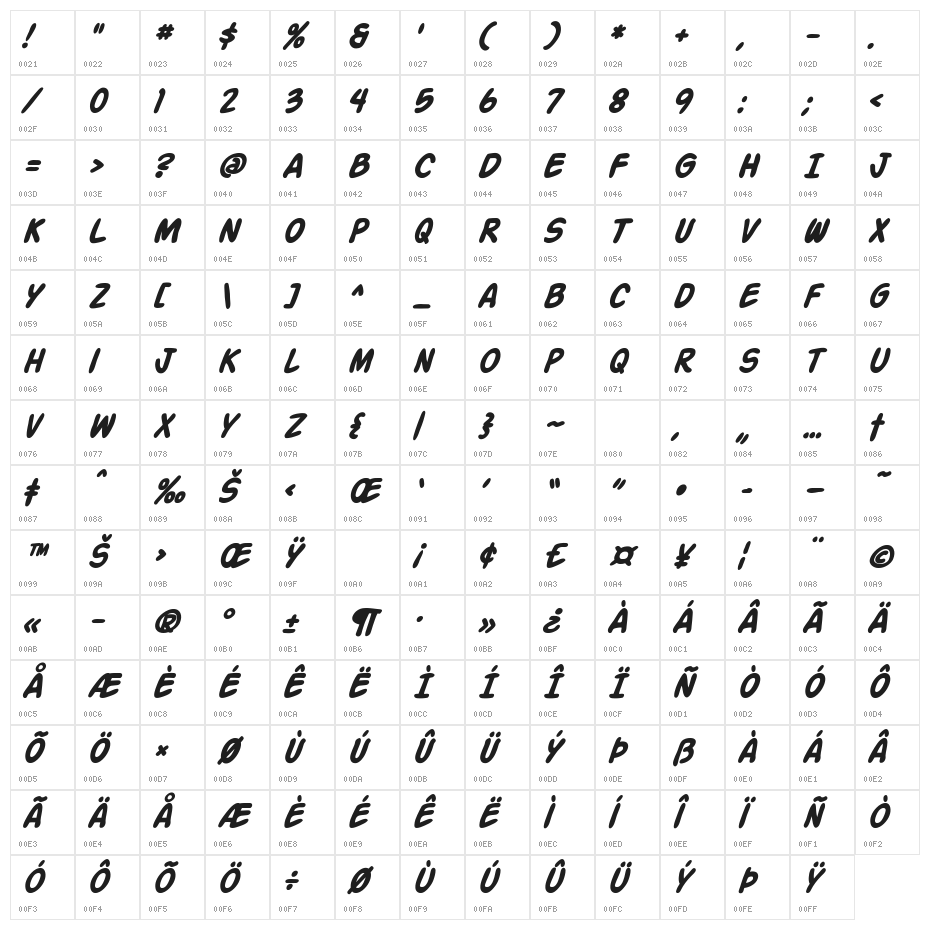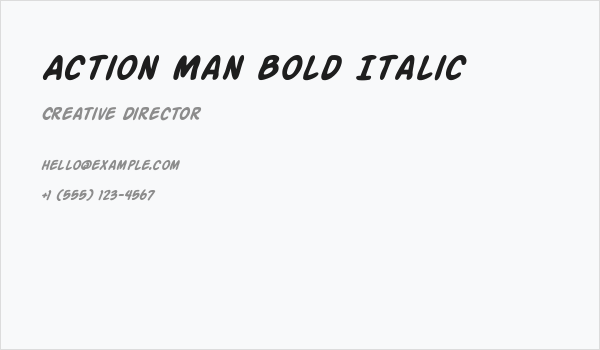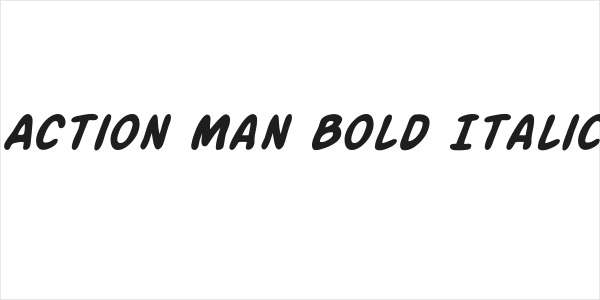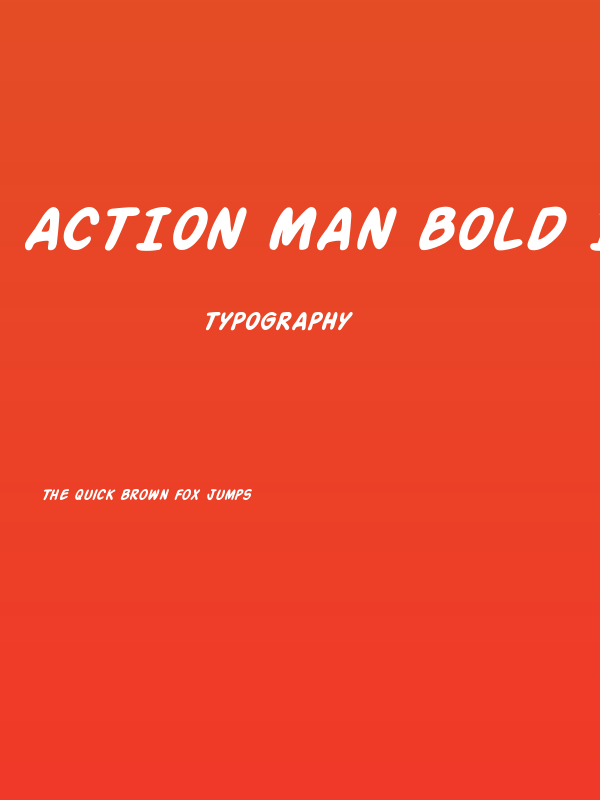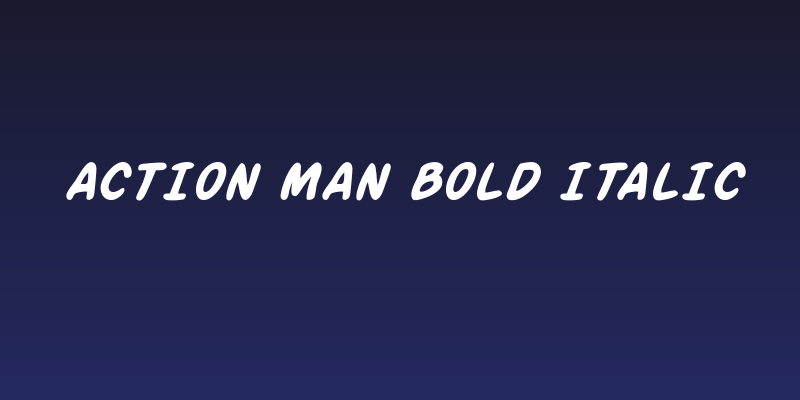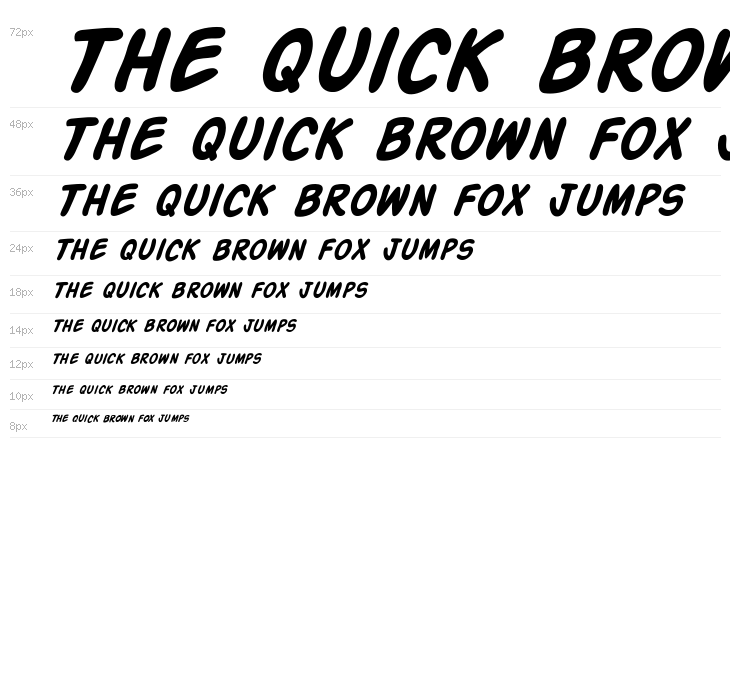
Action Man Bold Italic Font
Action Man Bold Italic Description
This font features a bold and italicized style with a playful, energetic appearance. The characters are rounded and slightly slanted, giving a sense of motion and dynamism. The strokes are thick and consistent, providing a strong visual impact. The uppercase and lowercase letters maintain a uniform style, with a slight cursive influence that adds to its informal and approachable feel. The numbers and special characters are designed to match the overall aesthetic, ensuring cohesive use across various applications.
| Proposed Projects | Ideal for branding, posters, and advertisements that require a bold and energetic look. |